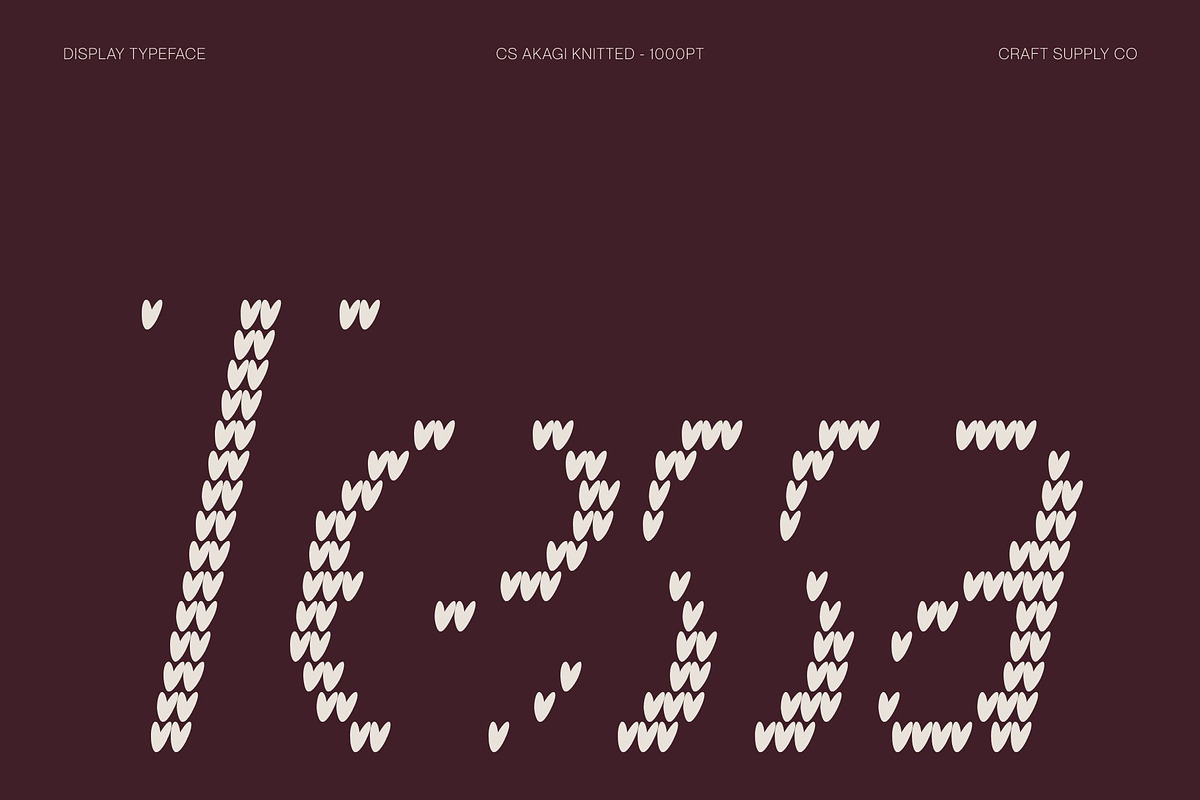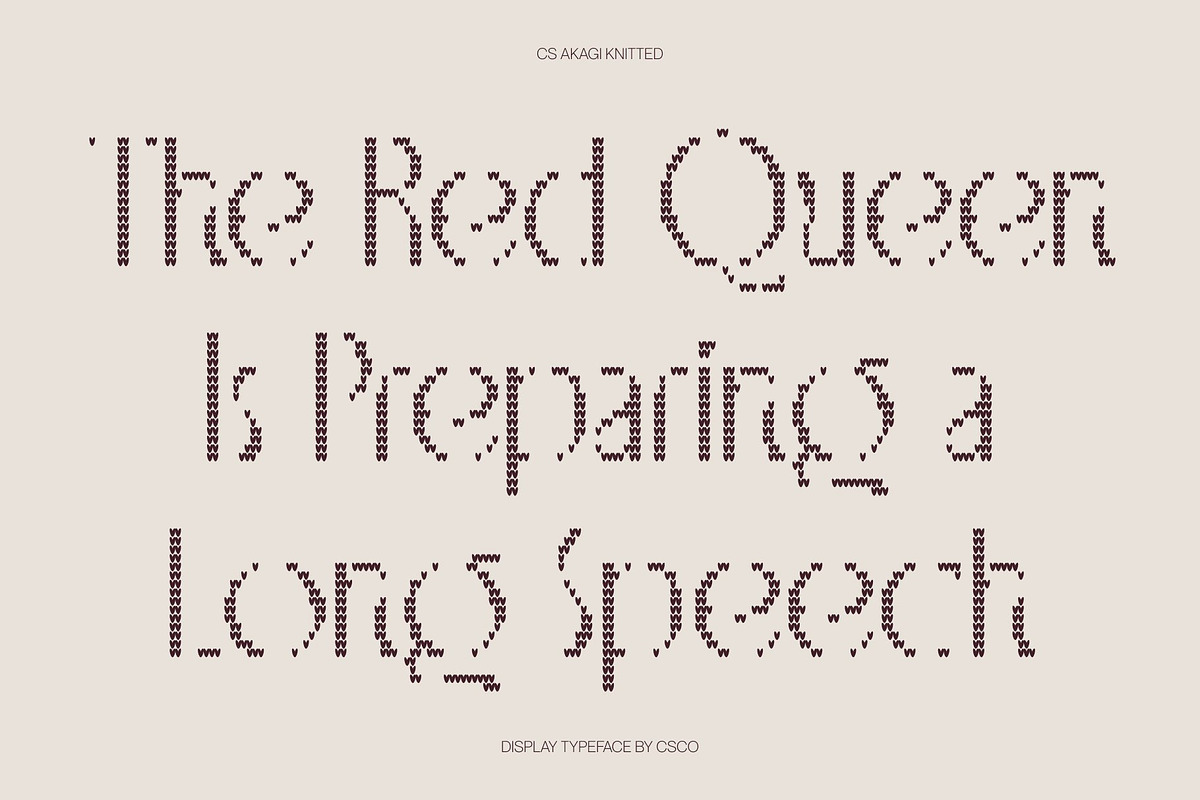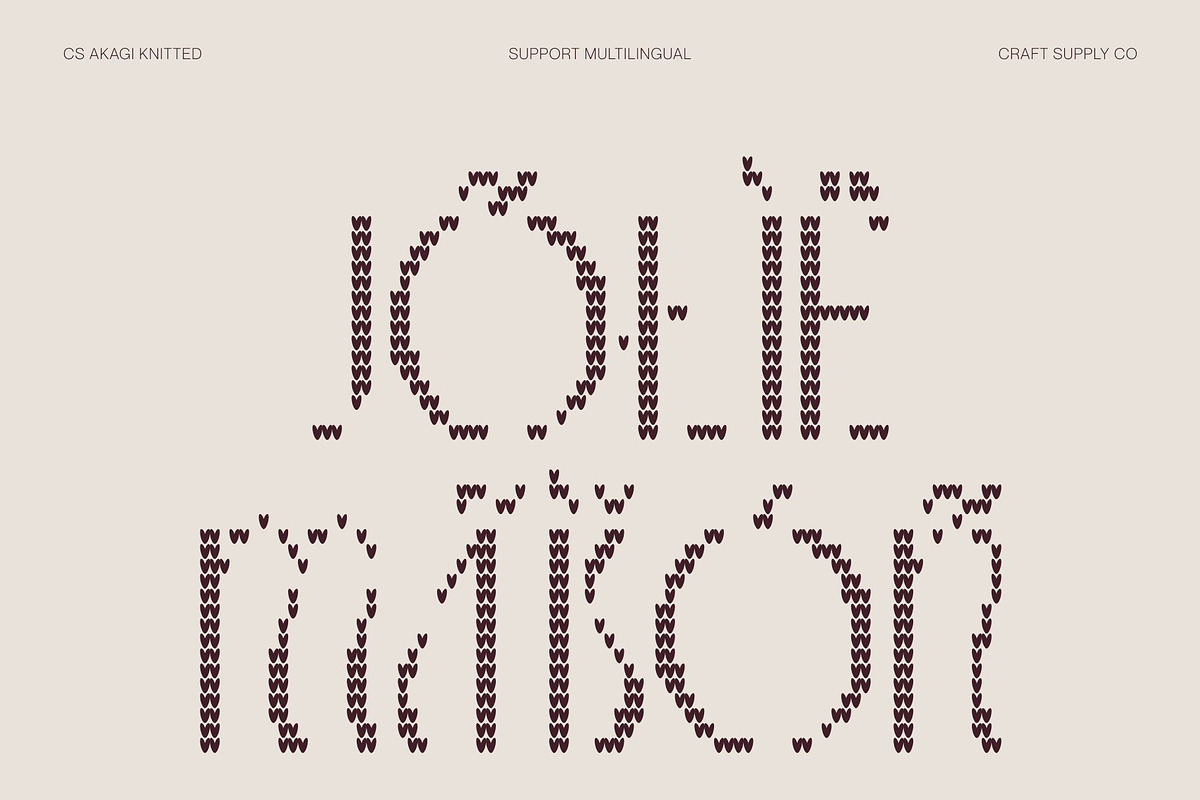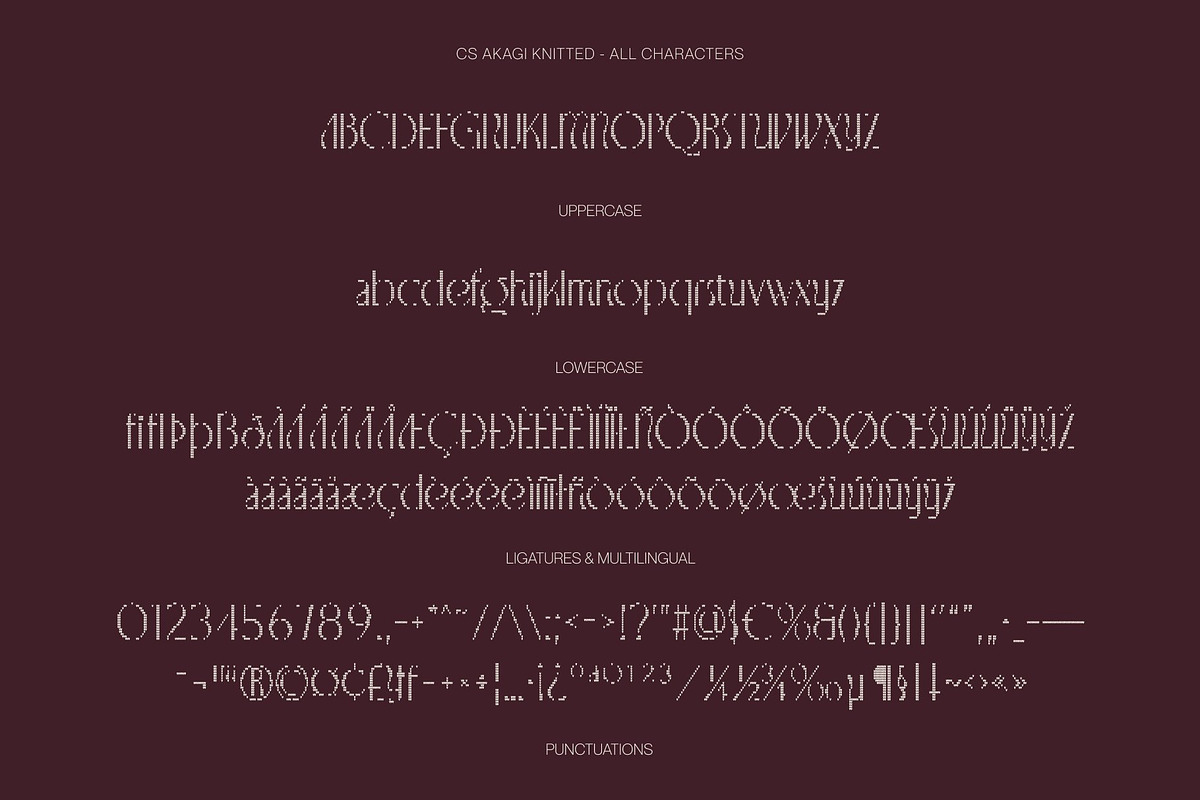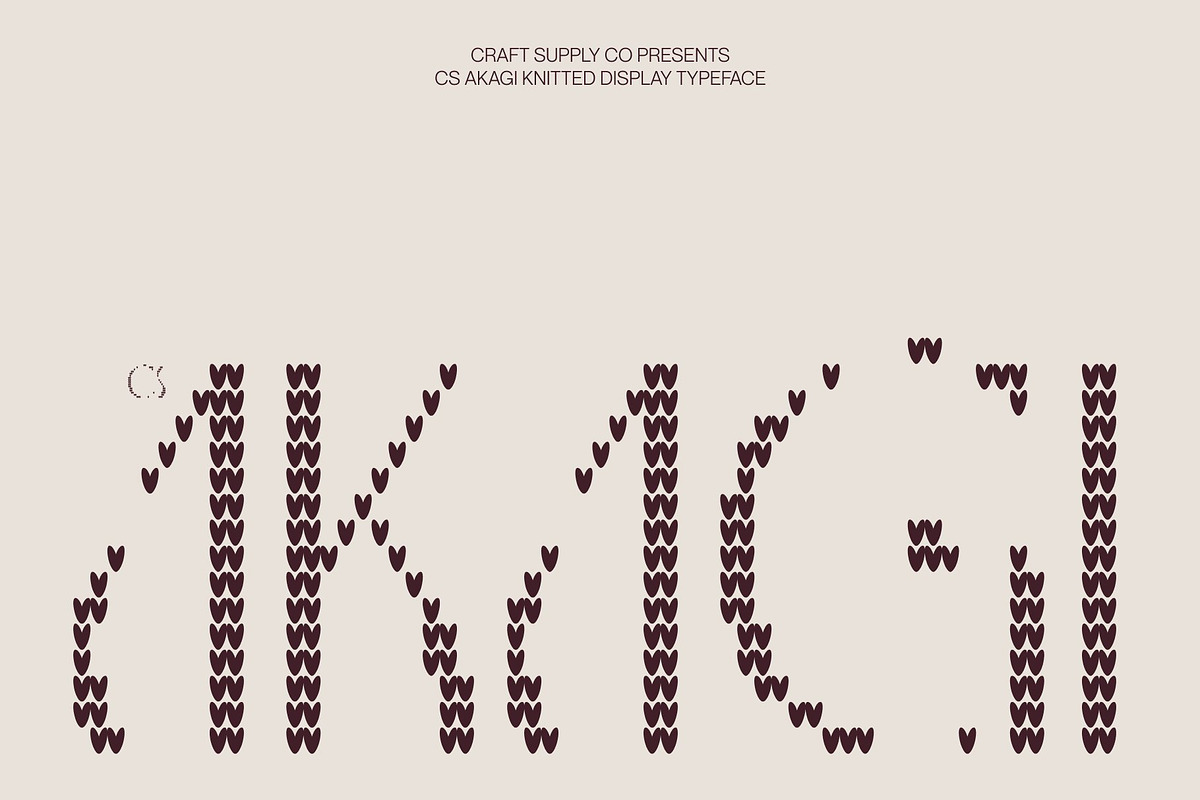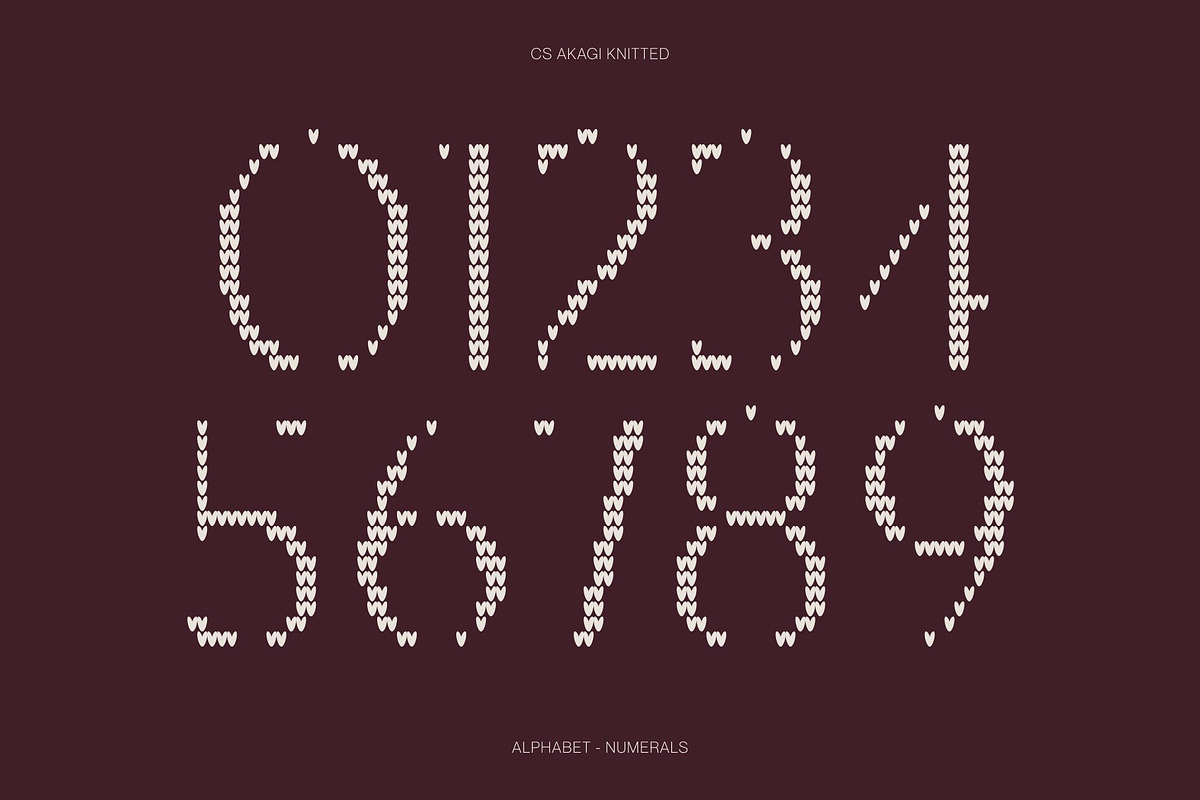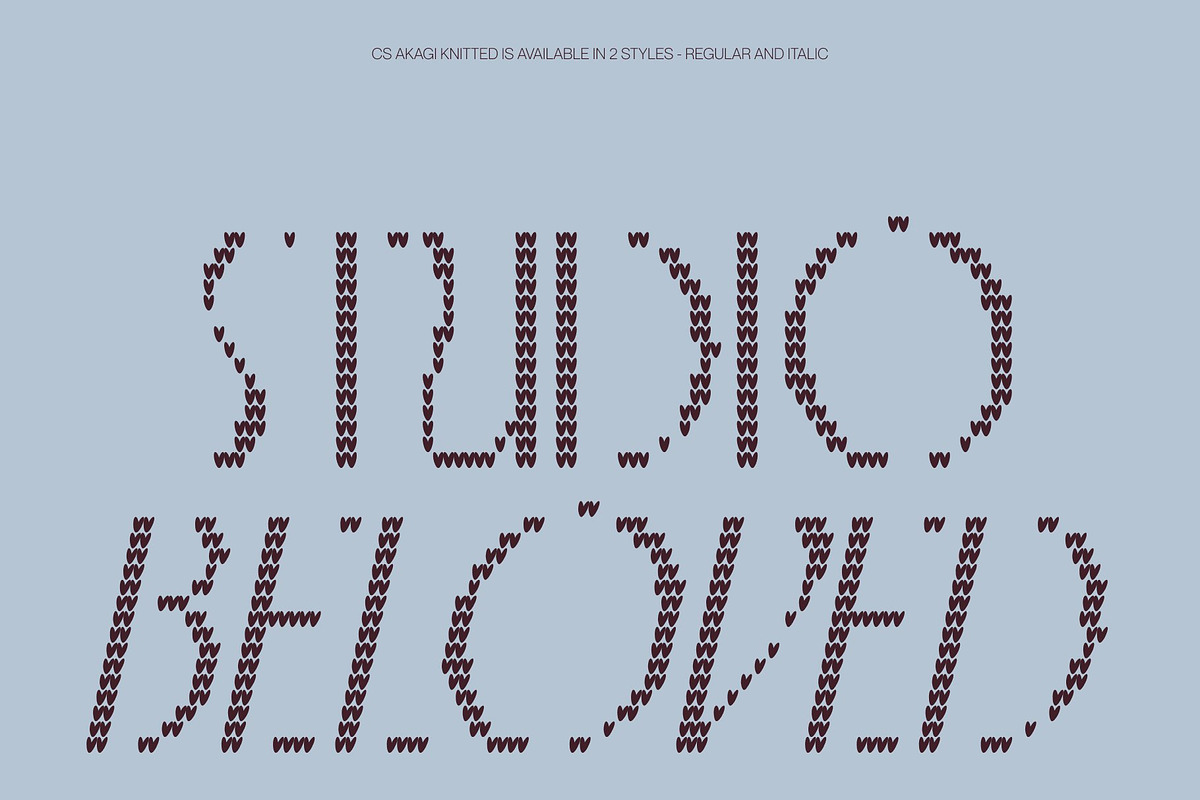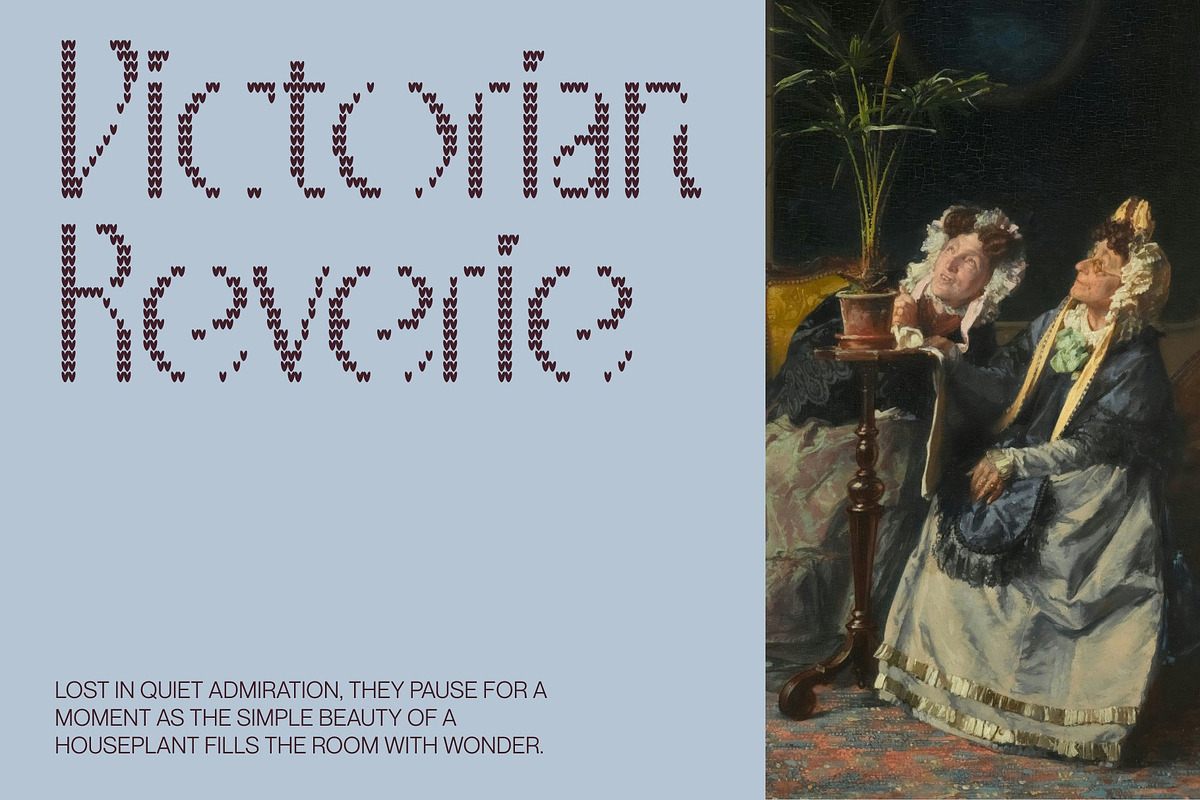
CS Akagi Knitted
CS Akagi Knitted – Elegant Sans Serif Font: Where Art Nouveau Grace Meets Cozy Handmade Texture
Refined Curves Inspired by Art Nouveau This is an elegant sans serif font defined by refined curves, graceful proportions, and a sophisticated visual presence. Inspired by the organic flow of Art Nouveau design, its smooth letterforms bring a sense of beauty, harmony, and artistic refinement. The font balances contemporary simplicity with decorative elegance, creating a distinctive and timeless character.
Knitted Effect with Warm Textile Charm This font is designed to resemble the texture of woven yarn found in sweaters, scarves, and handcrafted knitwear. Inspired by the looped construction of knitted fabric, this texture adds warmth, softness, and a cozy handcrafted quality to the elegant letterforms.
Artistic Elegance Meets Handmade Warmth This font creates a visual identity that feels both luxurious and approachable. The graceful forms communicate refinement and creativity, while the knitted texture introduces a friendly and nostalgic touch that makes designs feel more personal and inviting.
Perfect for Holiday and Craft-Inspired Designs Suitable for Christmas and holiday posters, handmade packaging, knitting and crochet brands, kids’ brands, greeting cards, seasonal promotions, craft businesses, winter-themed social media content, product labels, and creative visual identities. Its distinctive knitted texture and elegant Art Nouveau-inspired character make it ideal for logos, headlines, titles, and display typography that seek to communicate warmth, creativity, and timeless sophistication.
CS Akagi Knitted Regular
CS Akagi Knitted Italic